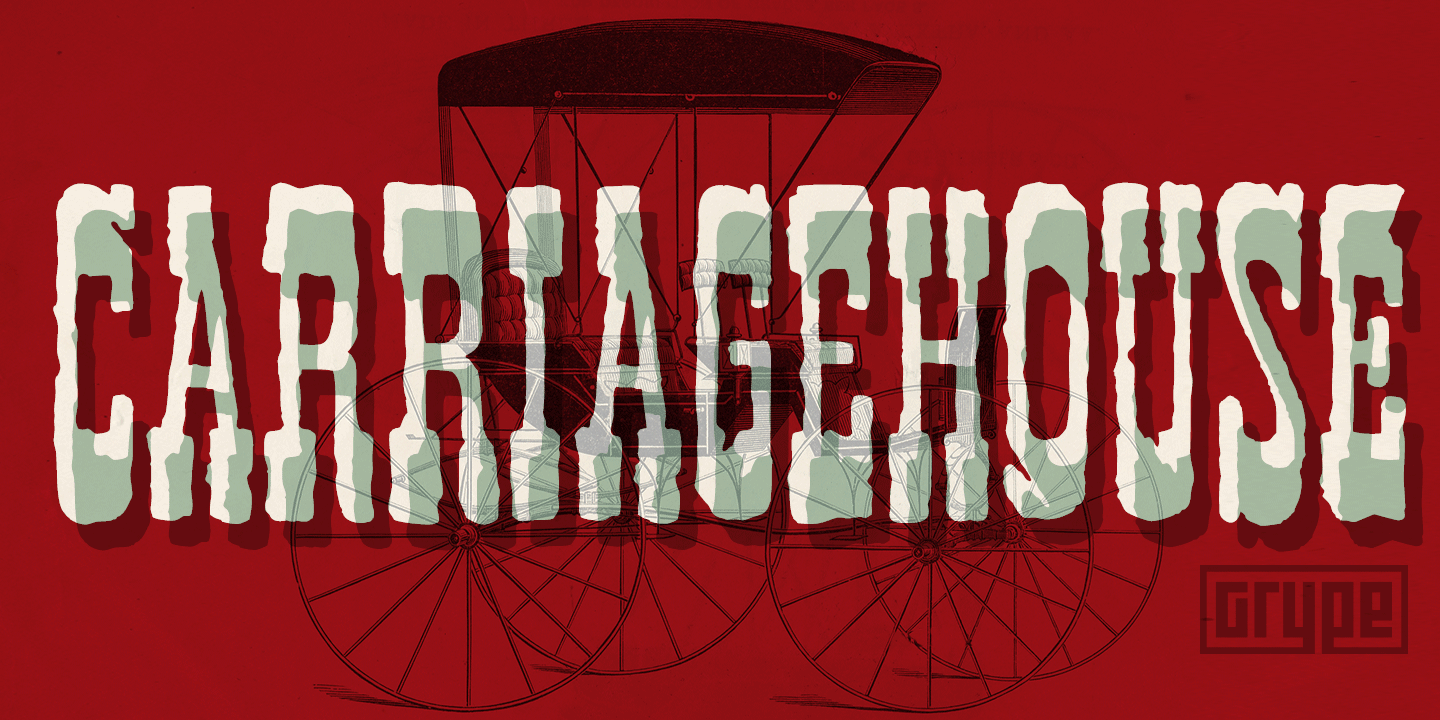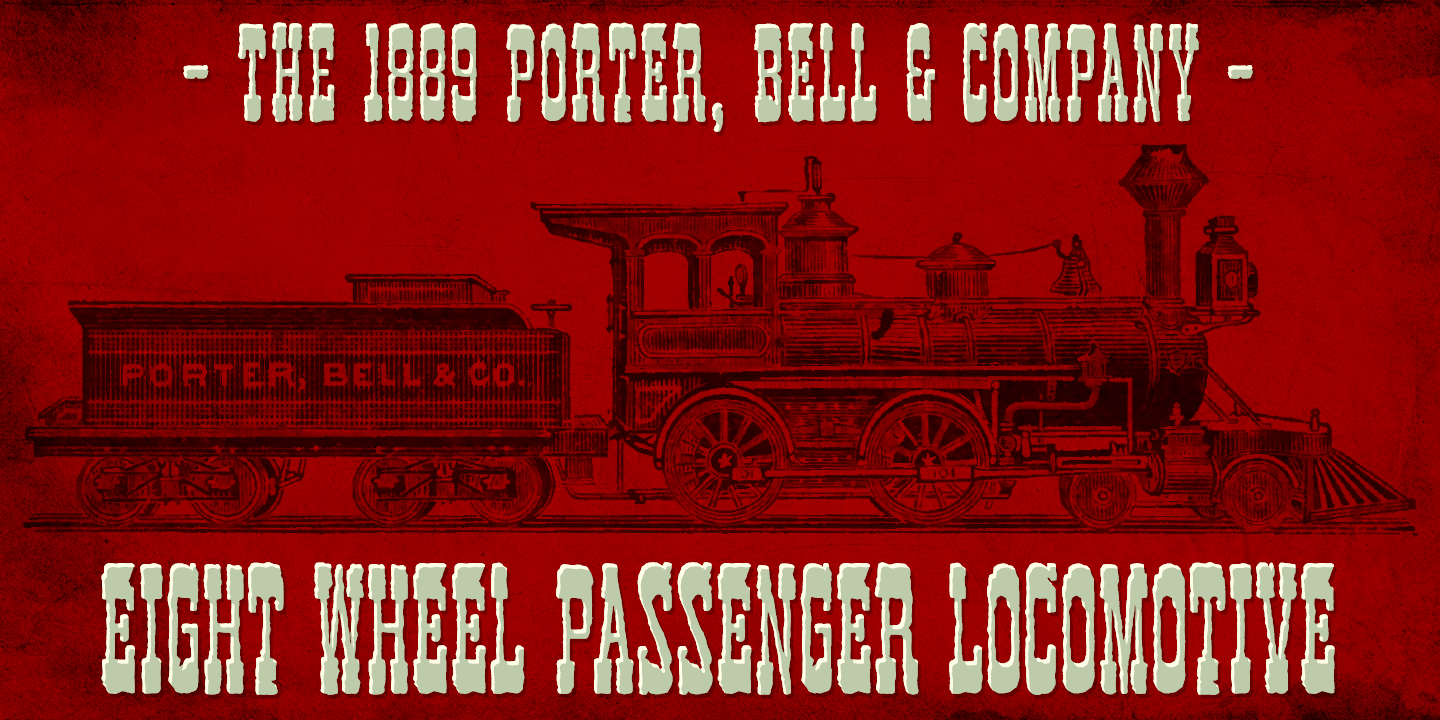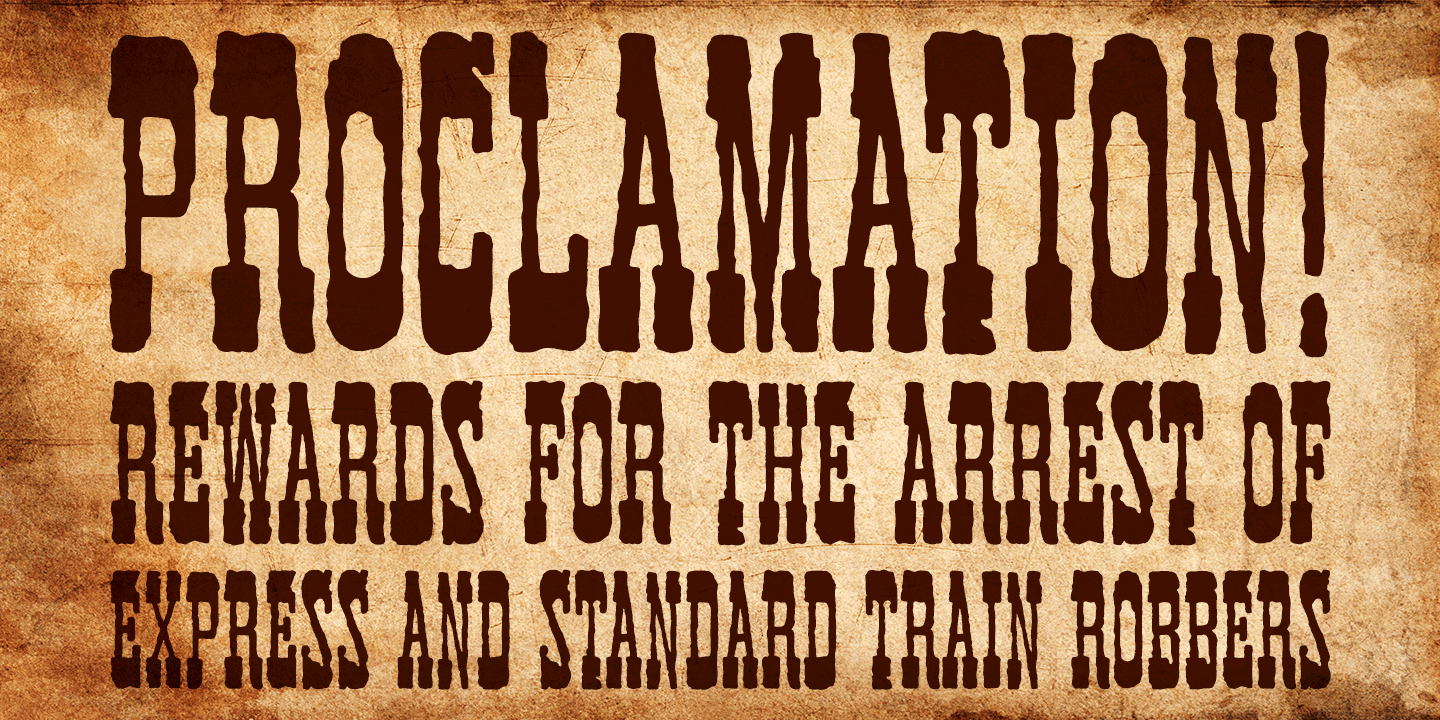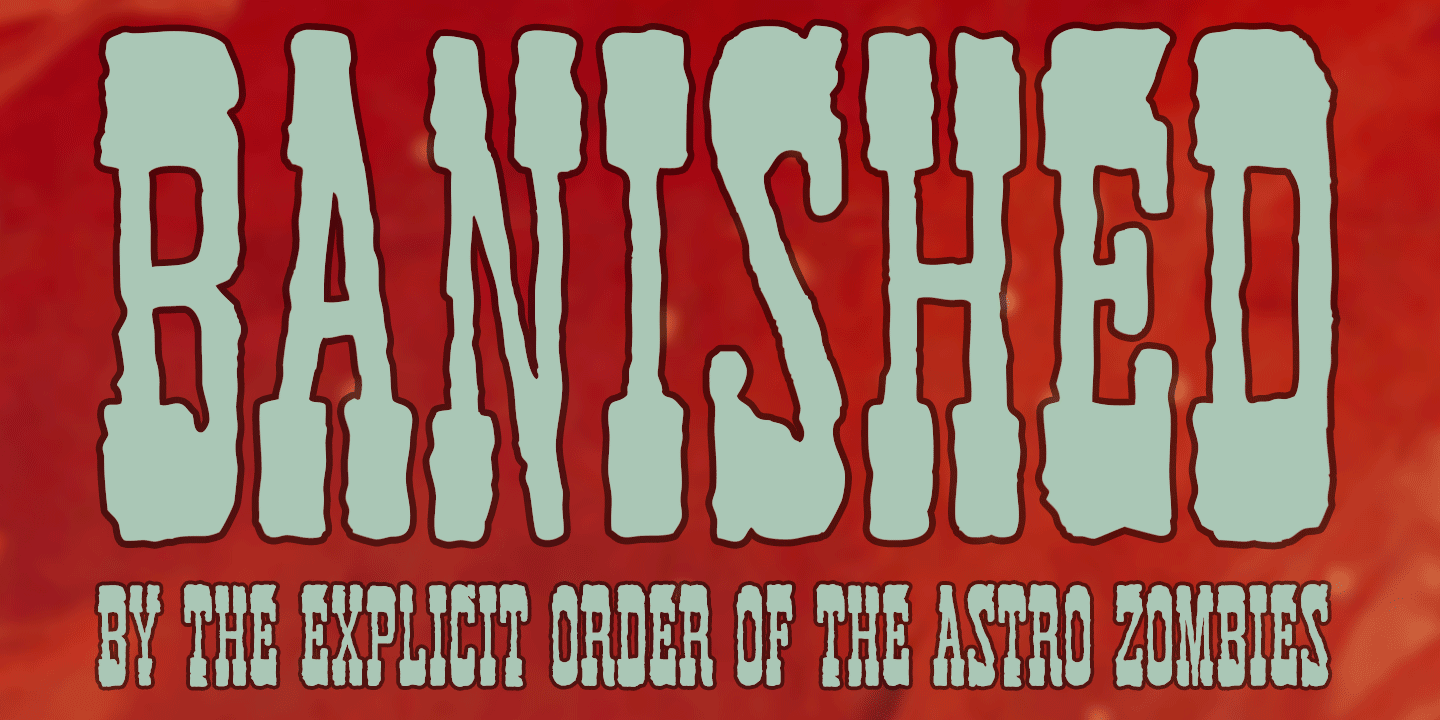
Banished GRP was inspired by posters for the 1968 Cult Cinema Classic, ?Astro Zombies?, yet it exudes the rough and tumble, chewed up and spit out Old West era. A contextual Alternates feature auto switches between Capitals & Lowercase (Alt Capitals)…